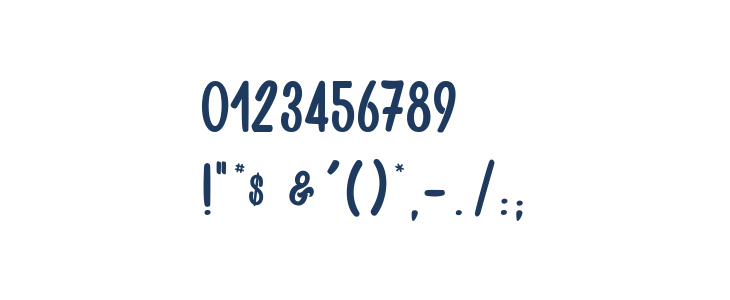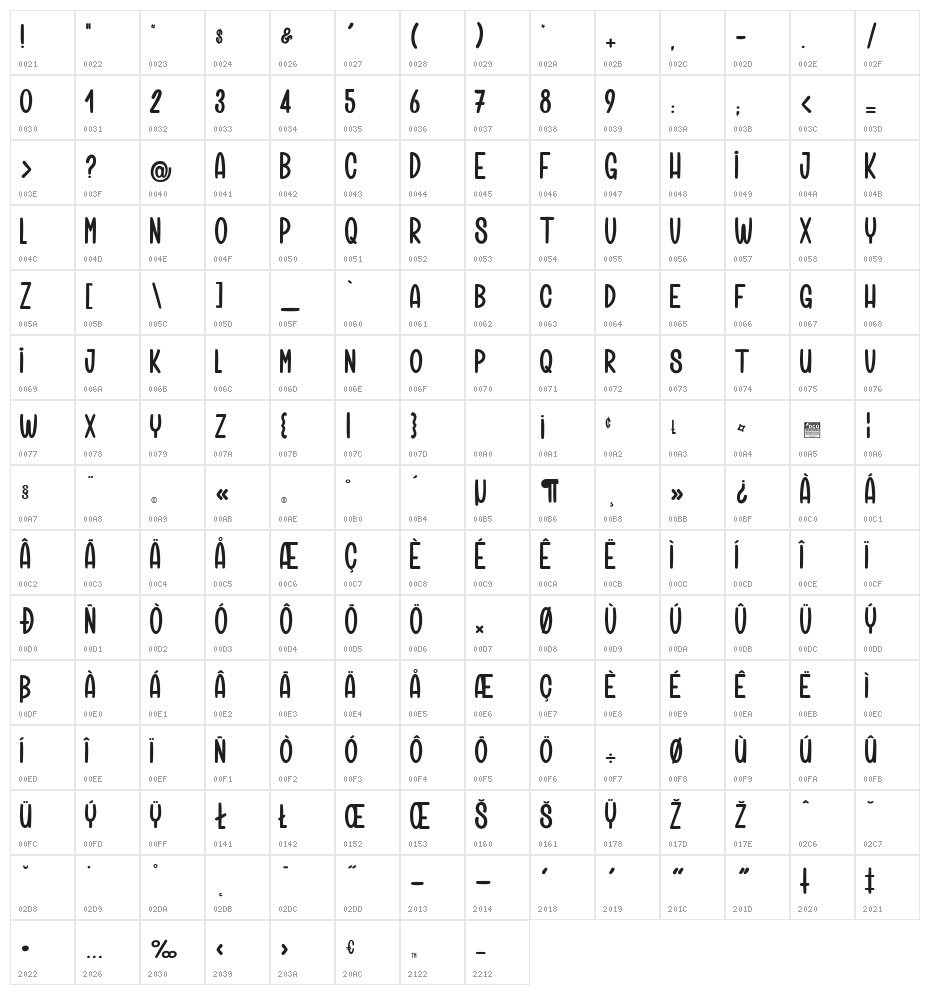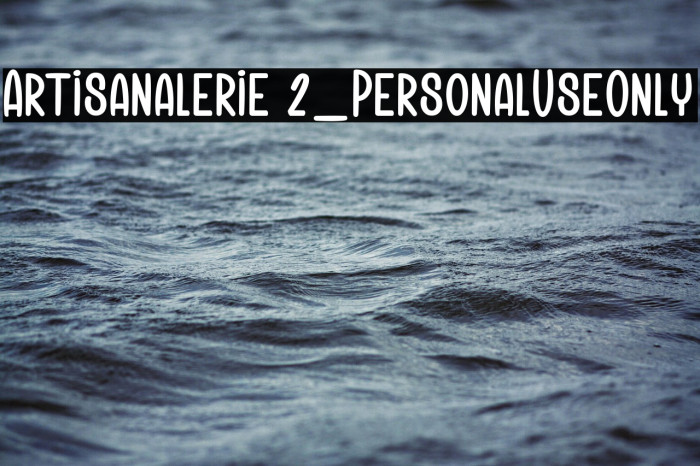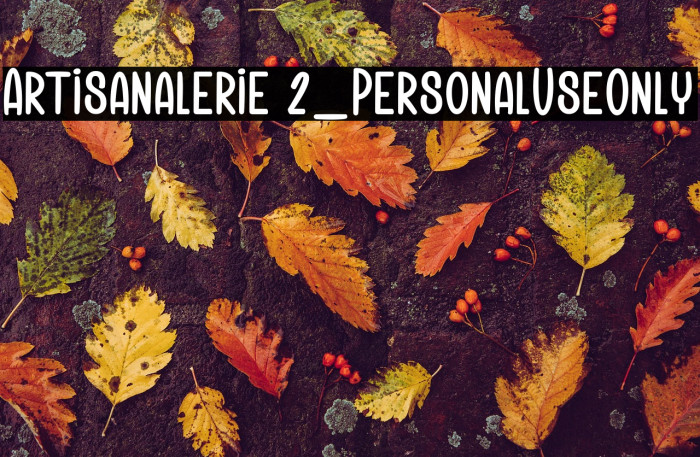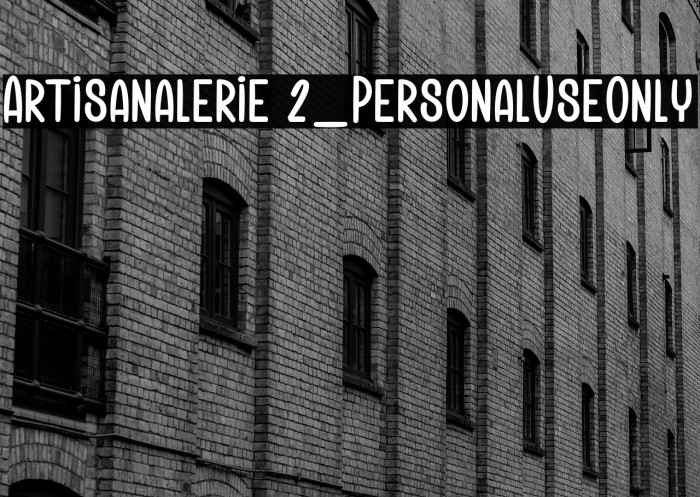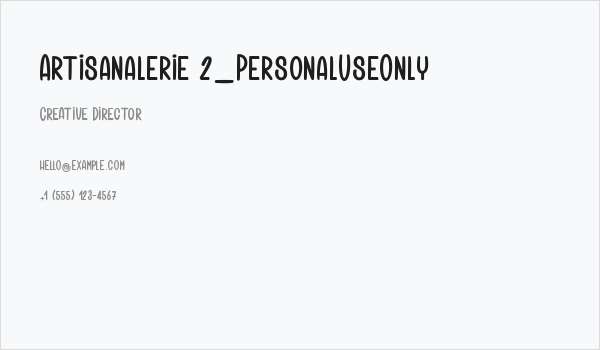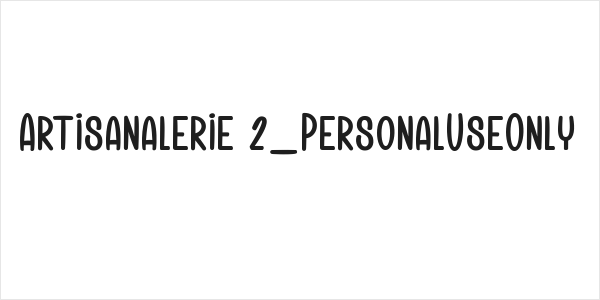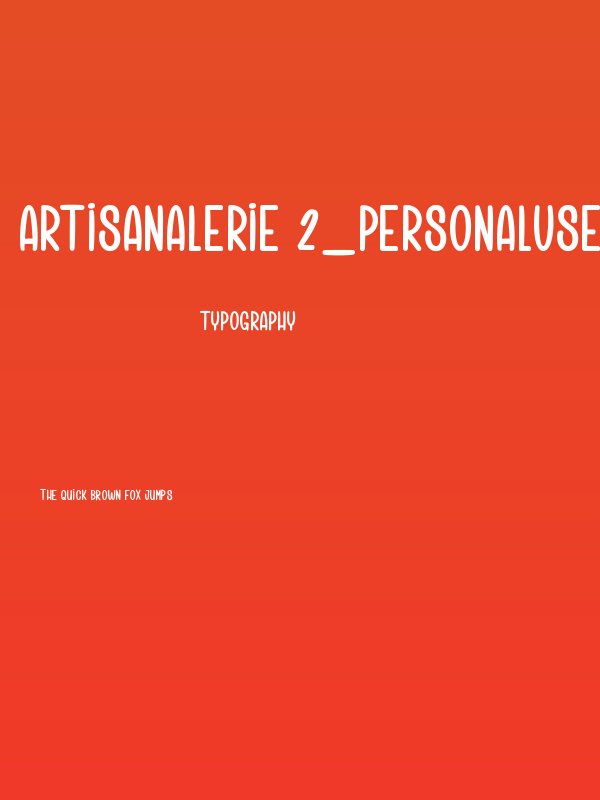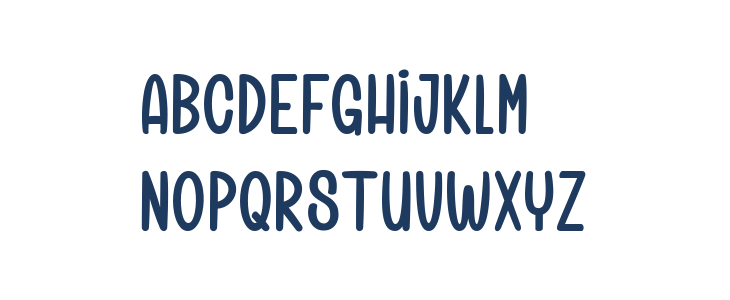
Artisanalerie 2_PersonalUseOnly Font
Artisanalerie 2_PersonalUseOnly Description
This font features a playful and rounded style, characterized by its bold and smooth curves. The letters are evenly spaced, with a consistent stroke width that gives it a cohesive and friendly appearance. The uppercase and lowercase letters maintain a uniform height, contributing to its clean and approachable look. Numbers and special characters are designed with the same playful aesthetic, making it versatile for various uses. The overall design is modern yet whimsical, suitable for projects that require a touch of fun and creativity.
| Overall Style | Modern, Whimsical |
| Proposed Projects | Ideal for children's books, playful branding, casual invitations, and social media graphics. |